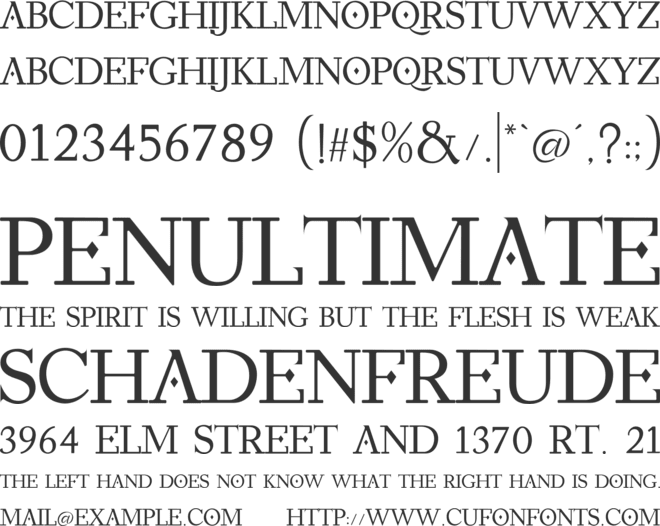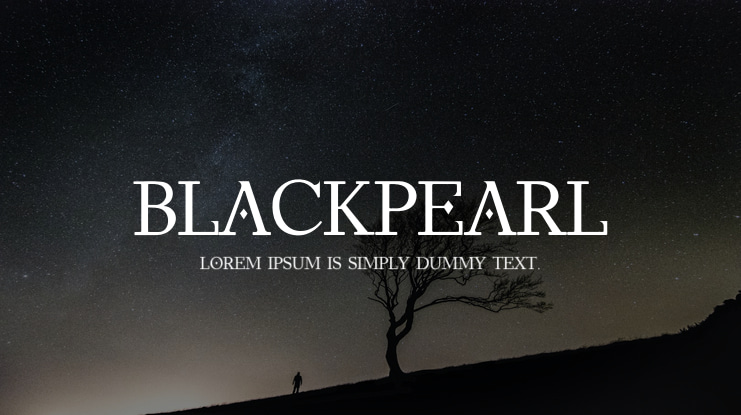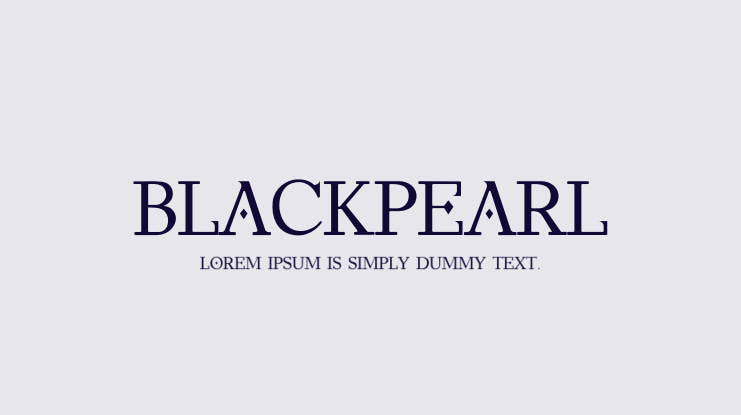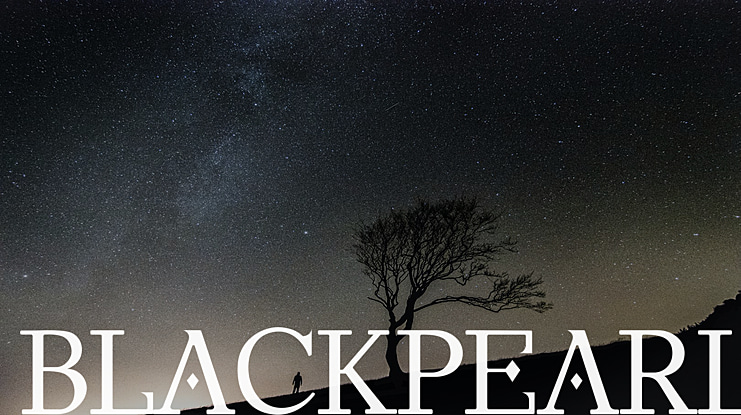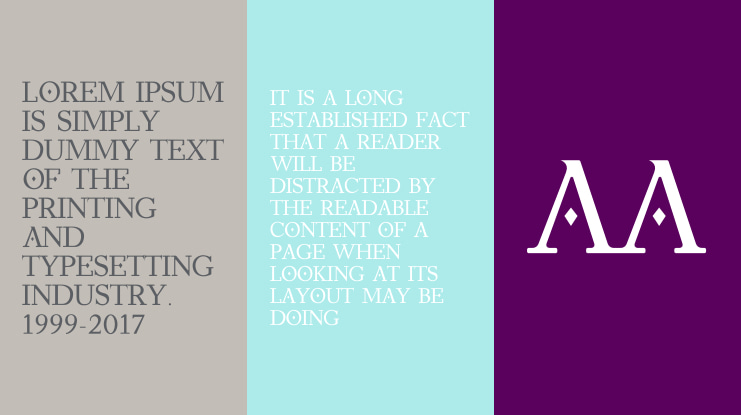
BlackPearl Font Family
BlackPearl Font Duo, Script and Serif, Luxury and Elegant
Make your project look more deluxe and good looking, very suitable for your project
that need lux feel, because this font got that taste, with beautiful ligature and detail in every letter